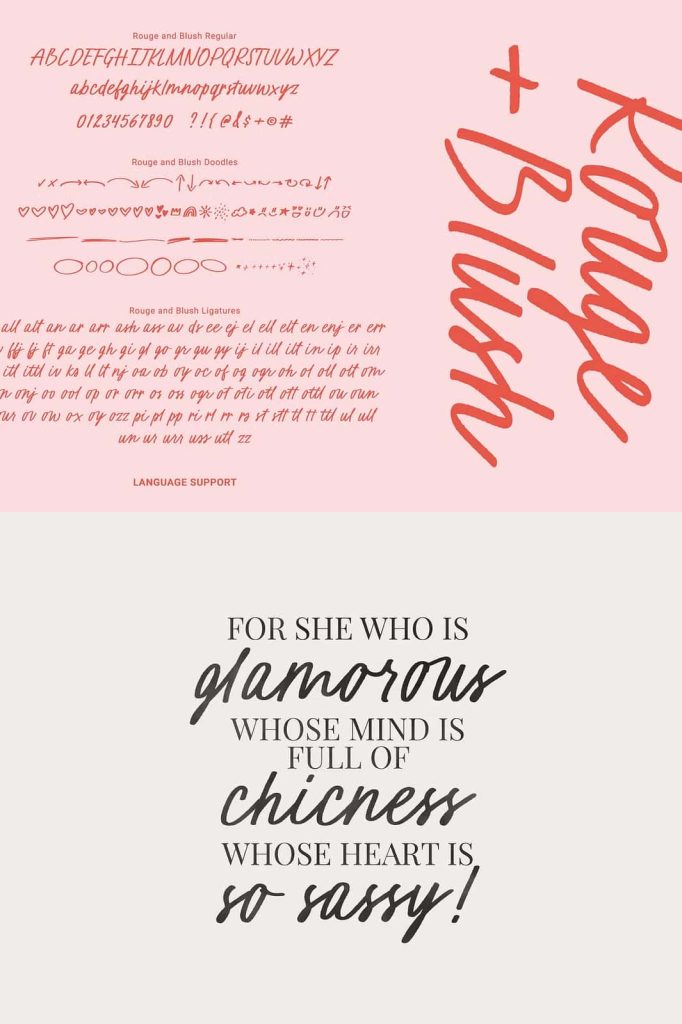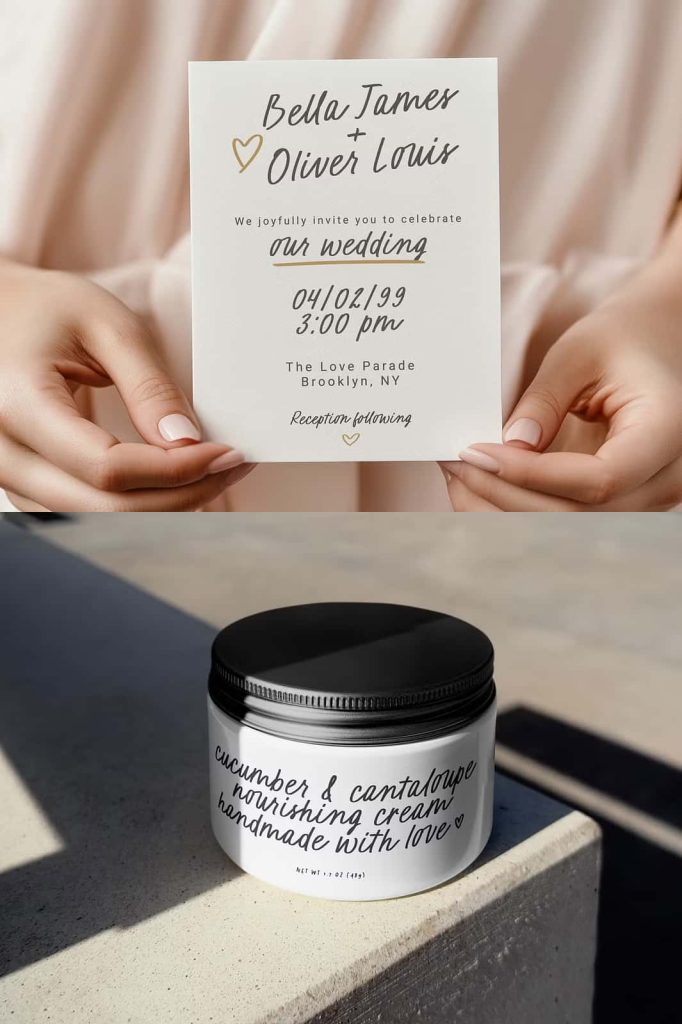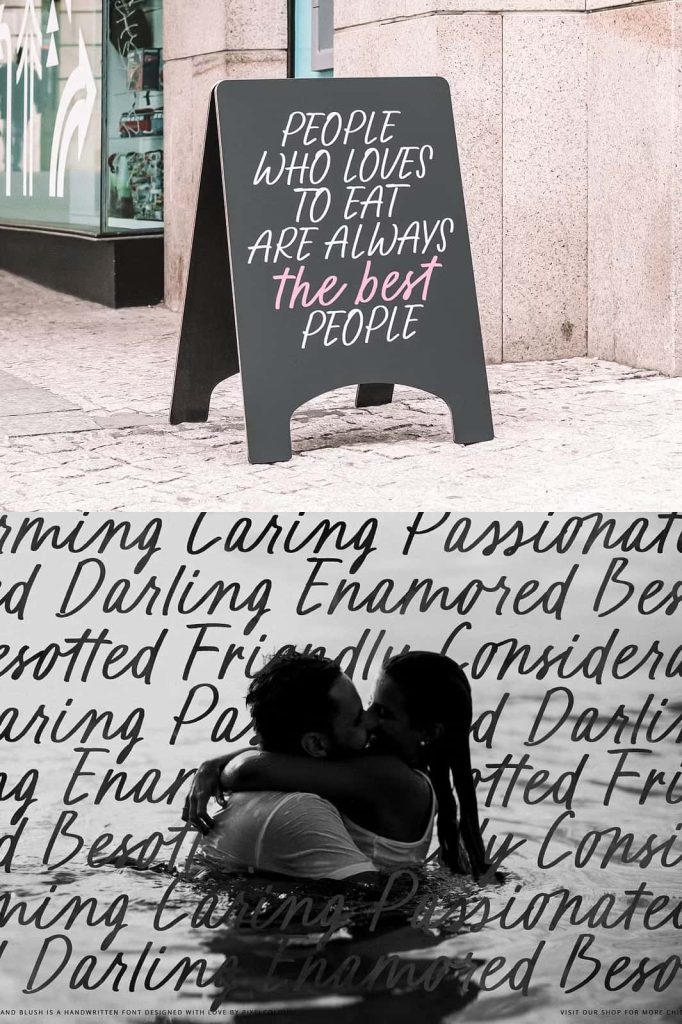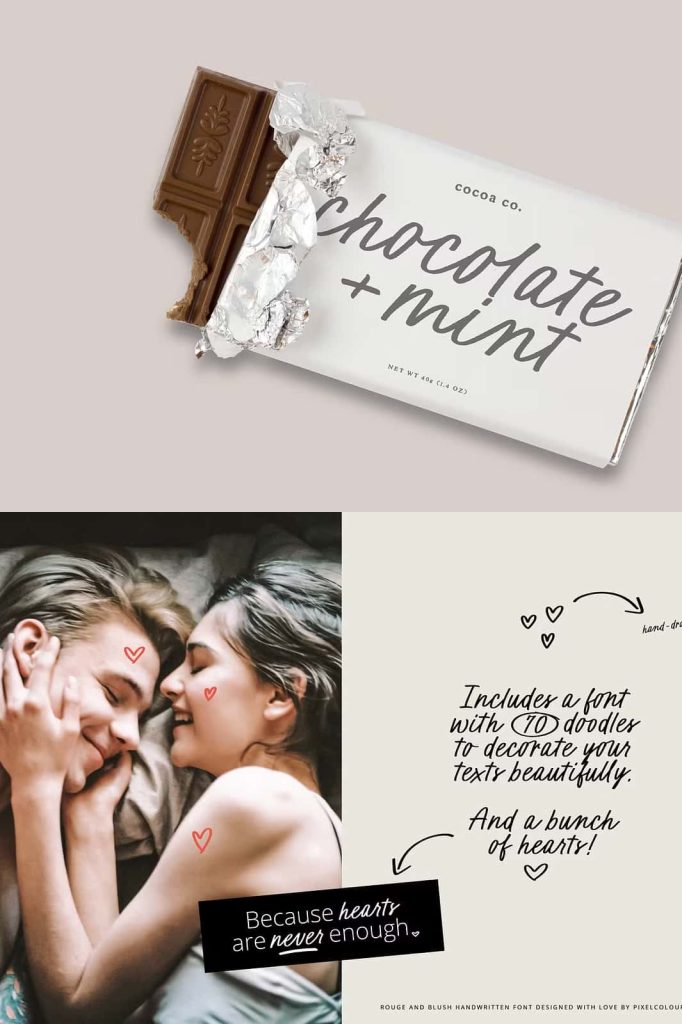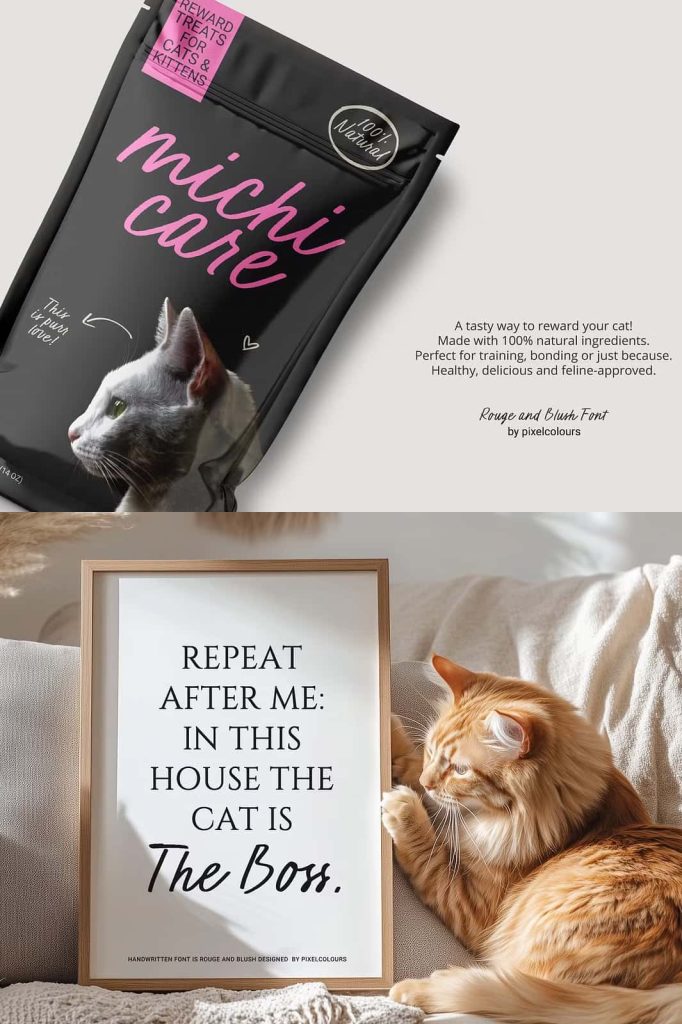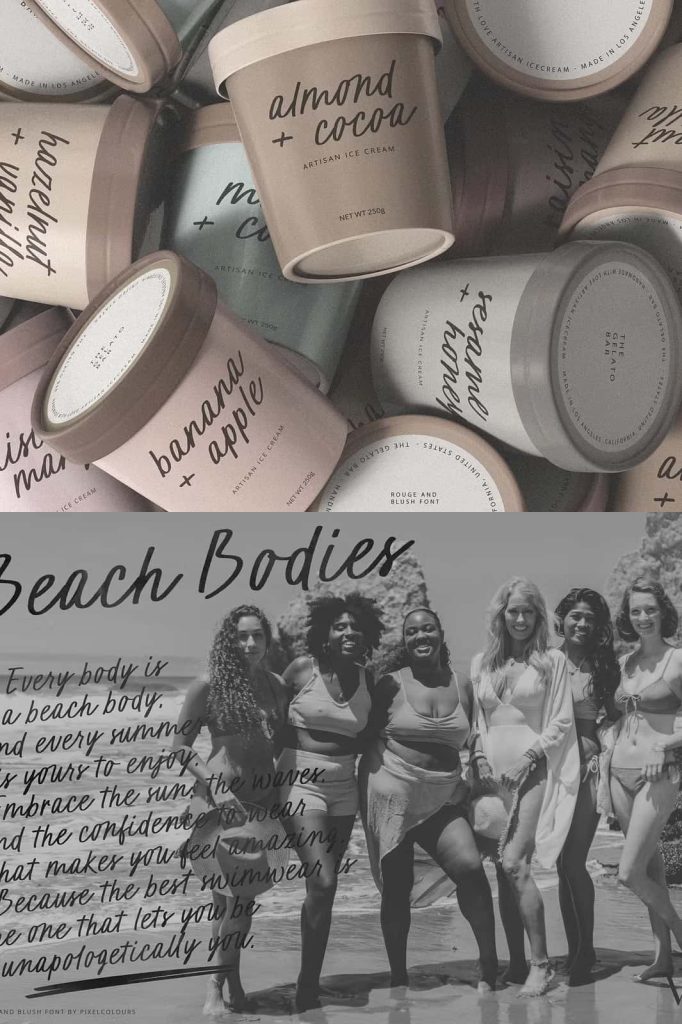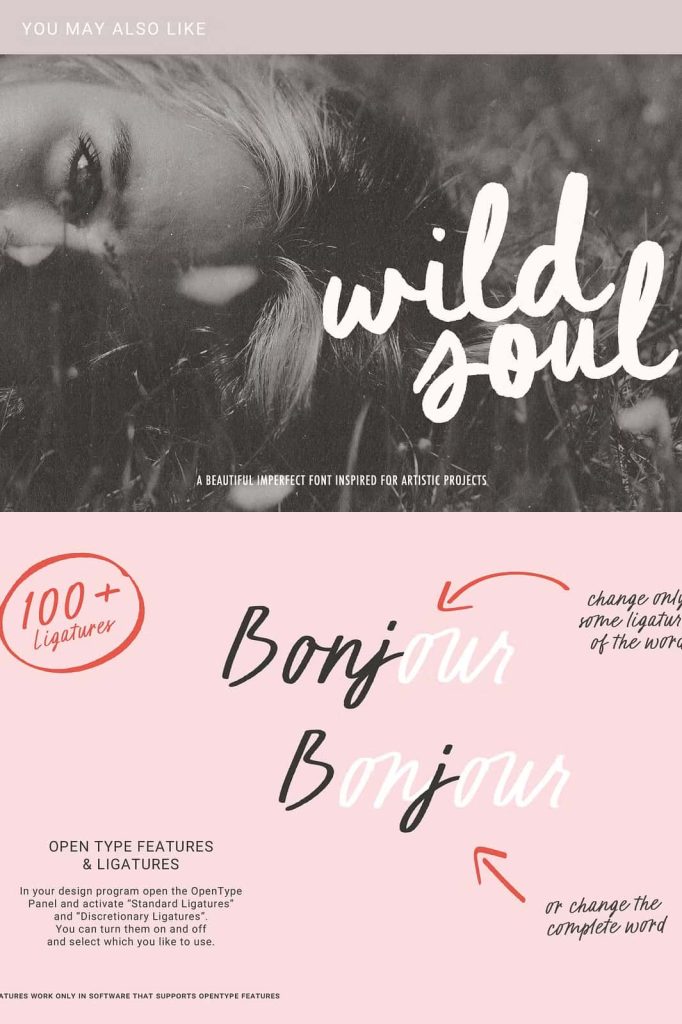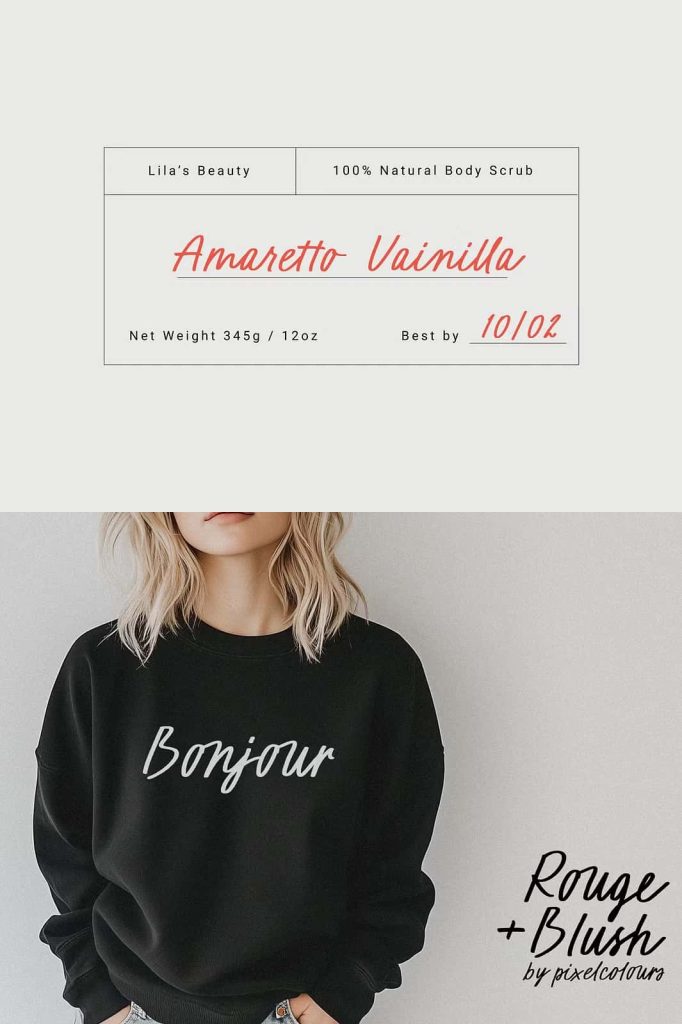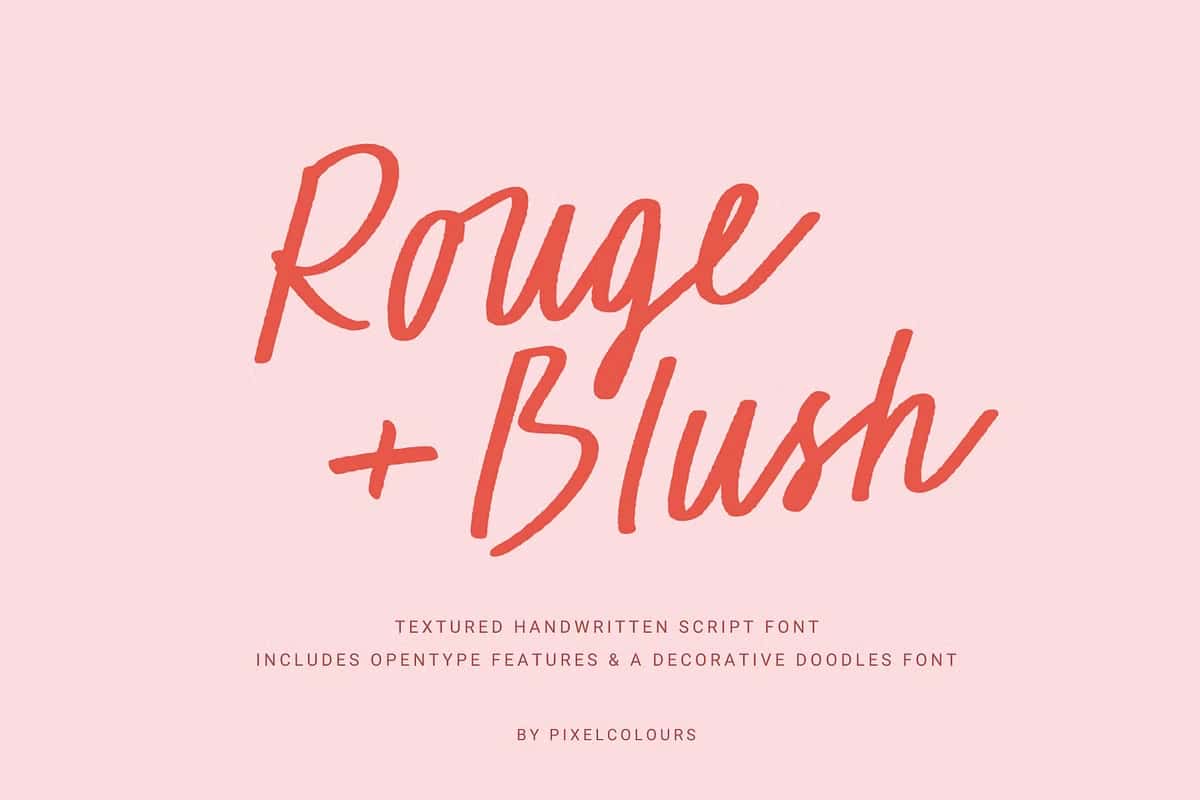
Rouge and Blush Handwritten Script Font
Rouge and Blush is a charming handwritten script font designed to bring warmth, creativity, and personality into modern design projects. Featuring textured strokes and an organic handwritten appearance, this typeface captures the beauty of natural penmanship while adding a playful and stylish touch to every layout. The flowing cursive style creates typography that feels personal, expressive, and visually engaging, making Rouge and Blush an excellent choice for branding, invitations, quotes, and artistic design work.
This handwritten script font combines casual elegance with handcrafted authenticity, allowing designers to create projects that feel approachable yet professionally styled. The textured lettering adds depth and character to text, helping designs stand out with a unique visual identity.
Organic Handwritten Style with Natural Texture
One of the most distinctive features of Rouge and Blush is its textured and organic handwritten appearance. Unlike clean digital typography that can sometimes feel rigid or impersonal, this font embraces natural imperfections and flowing movement to create a more authentic handwritten effect.
The textured strokes give every letter a handcrafted quality that feels artistic and full of personality. This organic look makes Rouge and Blush especially suitable for projects that require warmth, creativity, and emotional connection.
Its smooth cursive flow also helps create elegant typography compositions without sacrificing readability. Designers can confidently use the font for headlines, logos, invitations, and social media graphics while maintaining a balanced and polished appearance.
Perfect for Branding and Creative Identity
Rouge and Blush is ideal for modern branding projects that require a stylish and approachable visual identity. The playful handwritten style helps brands appear more authentic, creative, and memorable while maintaining a fashionable and modern aesthetic.
Logo Design
The flowing cursive style makes Rouge and Blush perfect for logo creation. Whether you are designing for a fashion brand, beauty business, café, handmade product line, or lifestyle company, this font adds elegance and individuality to your branding.
Packaging and Product Design
The textured handwritten lettering looks beautiful on product packaging, labels, tags, and promotional materials. It creates a handcrafted and boutique-inspired feel that enhances the overall presentation of products.
Social Media Branding
Modern social media design relies heavily on eye-catching typography, and Rouge and Blush delivers exactly that. Use this font to create stylish Instagram posts, Pinterest graphics, promotional banners, and engaging quote designs that attract attention instantly.
Beautiful Font for Wedding Invitations
Rouge and Blush works exceptionally well for wedding stationery because of its romantic and elegant cursive style. The handwritten texture creates a warm and personal atmosphere that perfectly complements modern wedding themes and luxury event design.
This font is suitable for:
- Wedding invitations
- Save-the-date cards
- RSVP designs
- Bridal shower invitations
- Wedding signage
- Menu cards and table settings
- Event branding materials
The playful handwritten details help wedding designs feel intimate, creative, and visually sophisticated.
Create Stylish Quotes and Typography Art
Rouge and Blush is an excellent choice for quote designs, typography posters, and inspirational graphics. The expressive cursive style gives text emotional impact while maintaining a relaxed and stylish appearance.
Designers can use this font to create:
- Motivational quote posters
- Social media typography graphics
- Wall art and printable designs
- Creative journal covers
- Greeting cards and stationery
- Fashion-inspired artwork
- Personal blog graphics
Its casual yet elegant style helps transform simple text into visually appealing artwork filled with personality and charm.
Versatile for Print and Digital Media
Rouge and Blush offers excellent flexibility across both print and digital projects. Designers can use it for branding, advertising, packaging, websites, event materials, and online content while preserving its organic handwritten appeal.
The font pairs beautifully with minimalist sans serif fonts, modern serif typography, and soft neutral color palettes. This versatility allows creatives to build cohesive and stylish layouts for many different industries and design styles.
Rouge and Blush is ideal for:
- Branding and logos
- Wedding stationery
- Social media graphics
- Fashion and beauty branding
- Packaging design
- Creative quote artwork
- Website headers and banners
- Greeting cards and invitations
- Lifestyle blogs and digital content
- Handmade product promotions
Why Designers Choose Rouge and Blush
Modern audiences often connect more strongly with designs that feel authentic and expressive. Rouge and Blush helps designers create typography that feels personal, creative, and emotionally engaging while maintaining professional quality and readability.
Designers choose Rouge and Blush because it offers:
- Organic handwritten script style
- Beautiful textured lettering details
- Playful and elegant cursive typography
- Perfect for branding and invitations
- Excellent for social media and quote graphics
- Versatile for print and digital projects
- Stylish and approachable visual identity
Create Warm and Memorable Designs
Typography plays an important role in shaping how audiences experience a design, and Rouge and Blush helps create visuals that feel welcoming, creative, and stylish. Its textured handwritten style instantly adds personality and emotional warmth to logos, invitations, promotional graphics, and branding materials.
Whether you are designing a modern wedding invitation, building a creative brand identity, or creating stylish social media content, Rouge and Blush delivers beautiful handwritten typography with organic charm and playful elegance.
Bring Personality to Your Typography
Rouge and Blush is more than just a handwritten script font. It is a creative typography tool designed to help designers produce memorable visuals with natural texture, expressive style, and artistic personality.
From branding and packaging to wedding stationery and inspirational quotes, Rouge and Blush brings modern handwritten beauty and casual sophistication to every project.